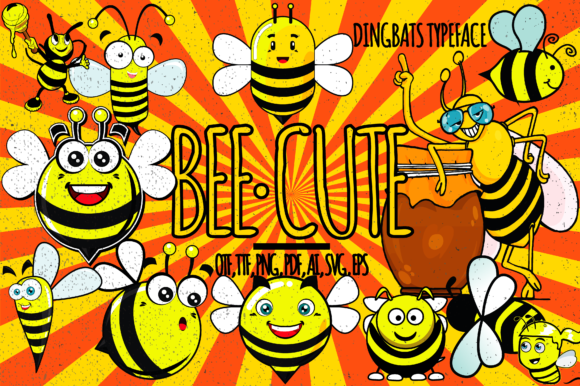
Introducing Bee Cute Font - A Gateway to a Buzzing World of Creativity!
Welcome to the whimsical realm of Bee Cute Font, where imagination and creativity take flight! Embark on an artistic adventure with this playful dingbats typeface, designed to unleash your inner child and captivate your audience with its charming bee-themed designs.
With Bee Cute Font, every keystroke transforms into a delightful bee, buzzing with personality and ready to adorn your creative projects. Type uppercase and lowercase letters to generate an astonishing array of 47 unique bee designs. Let your words take wing as you craft eye-catching logos, vibrant website headers, adorable social media posts, and enchanting invitations that are sure to leave a lasting impression.
Whether you're a seasoned designer or just starting your creative journey, Bee Cute Font is your perfect companion. Its user-friendly interface makes it a breeze to navigate, while its versatile nature allows it to seamlessly integrate into any design project.